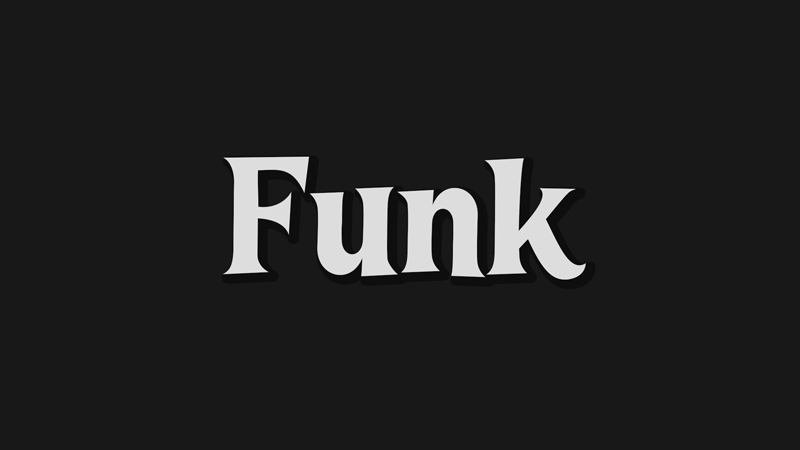
Font name: | LT Funk |
Author: | Daniel Lyons |
Note by Daniel Lyons | |
A funky bold serif font that can be used for cartoon projects that are set in the 50's, 60's and/or 70's. Part of LyonsType Classics. |